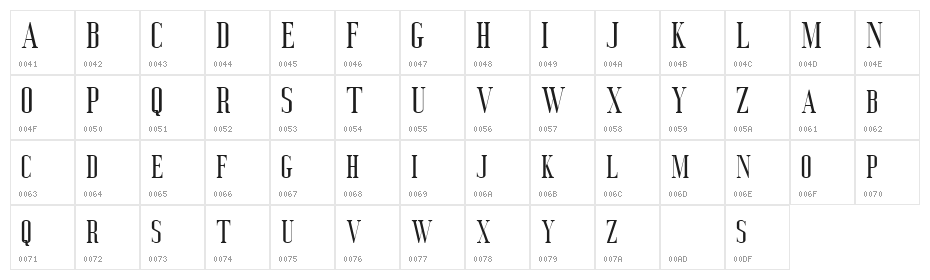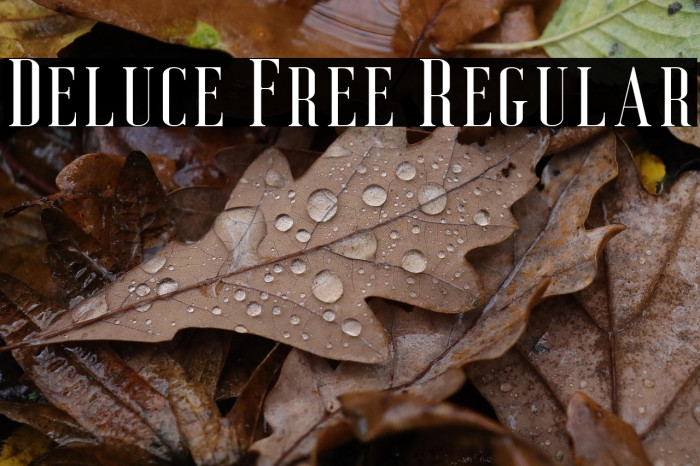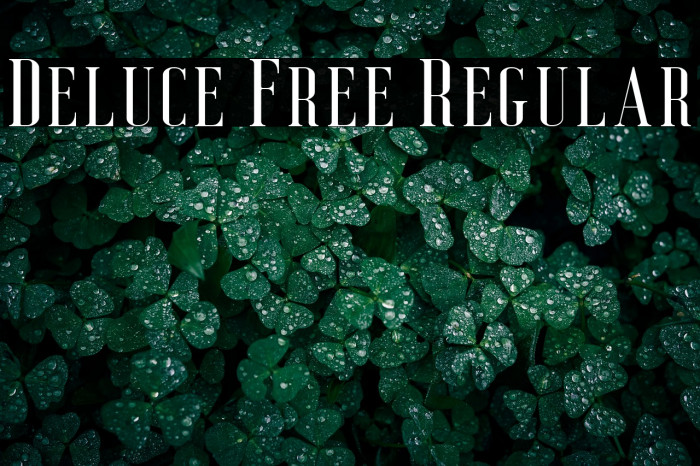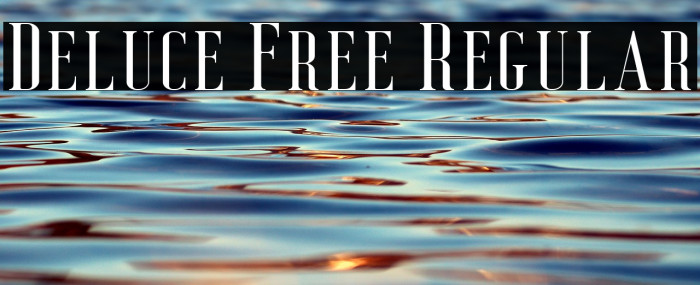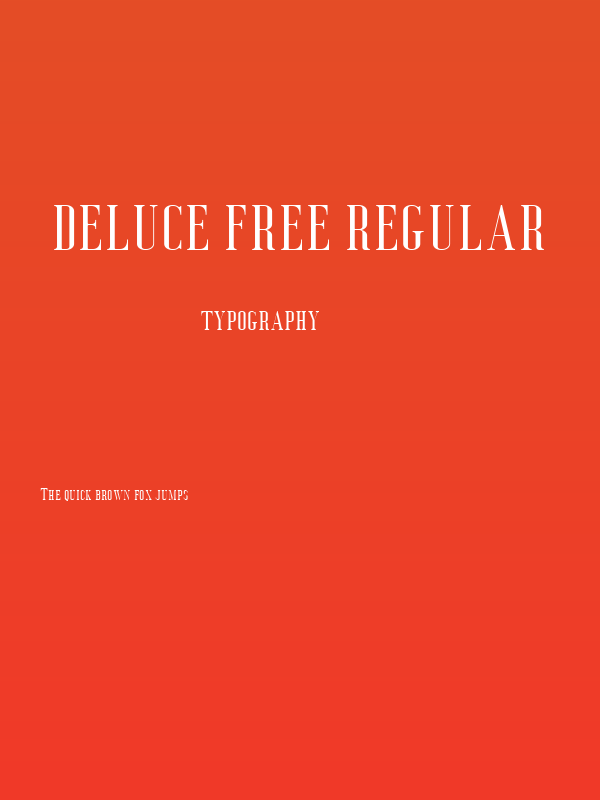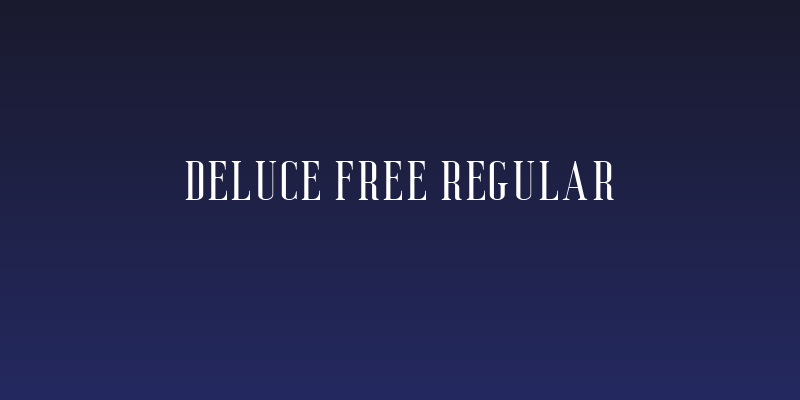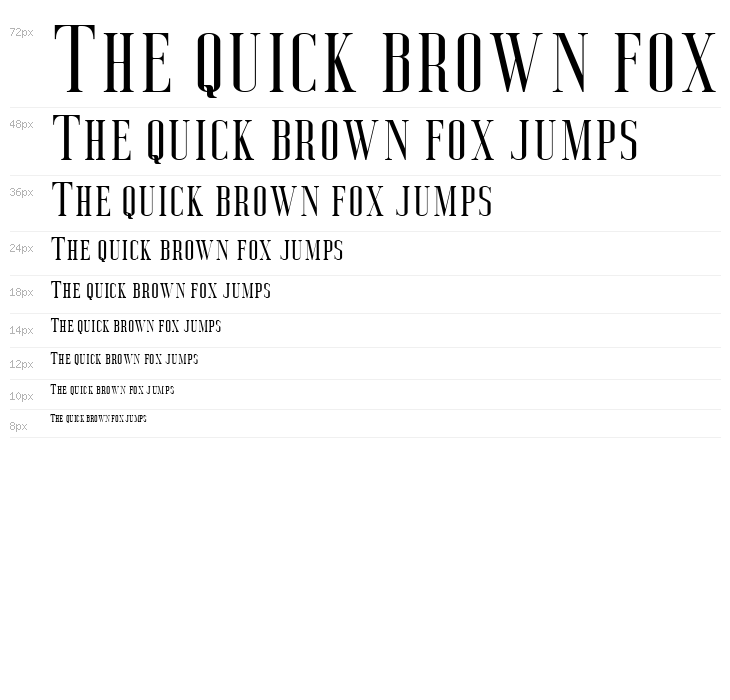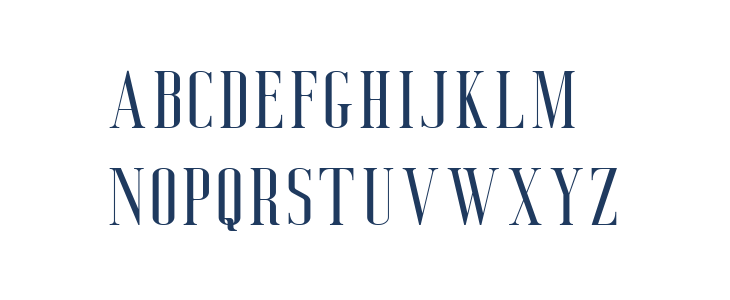
Deluce Free Regular Font
Deluce Free Regular Description
This font features a sophisticated and elegant design with tall, narrow letterforms that exude a sense of refinement and style. The characters are sharply defined with high contrast between thick and thin strokes, giving it a dramatic and eye-catching appearance. The serifs are pronounced yet delicate, adding a touch of classic elegance to the overall look. This font is well-suited for projects that require a touch of sophistication and class, such as luxury branding, high-end fashion editorials, or elegant invitations. Its distinctive style makes it ideal for headlines and titles where a strong visual impact is desired.
| Width | Condensed |
| Overall Style | Classic |
| Proposed Projects | Luxury branding, fashion editorials, elegant invitations, and dramatic headlines. |